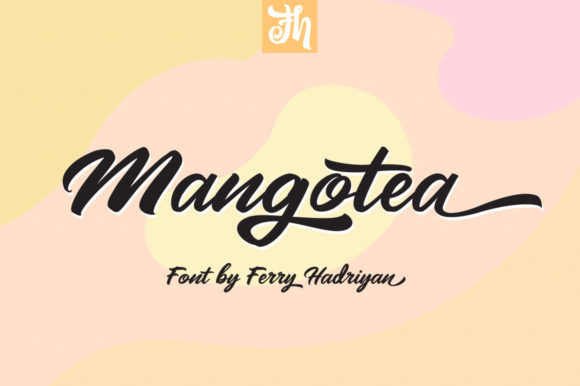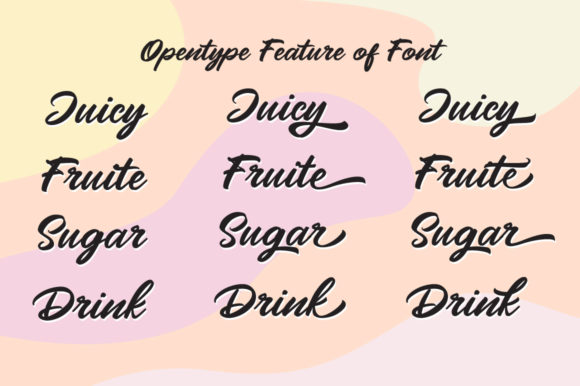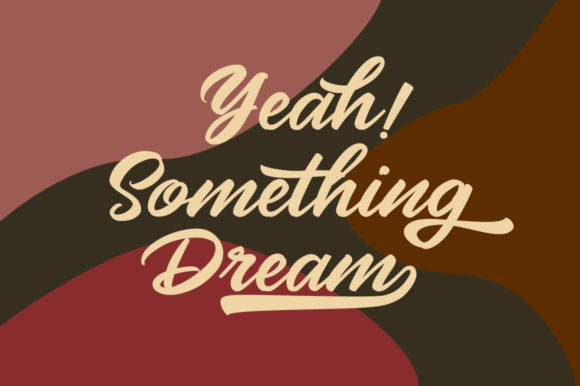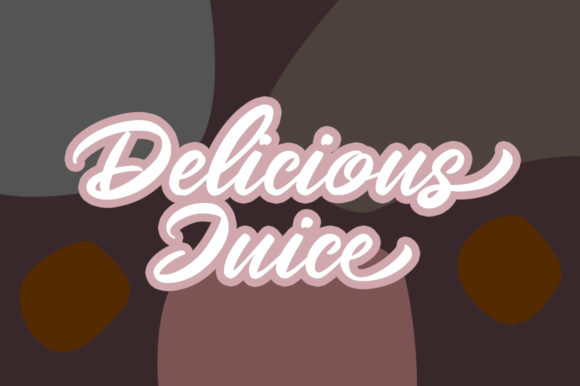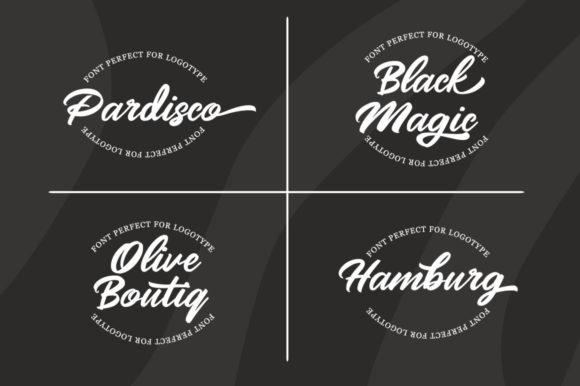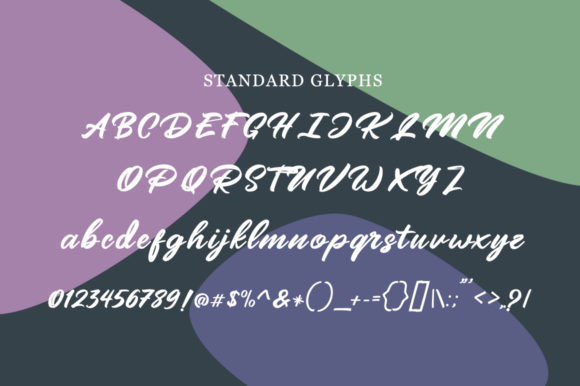
HomeScript FontsMangotea Font Script Fonts Mangotea Font FacebookXPinterestWhatsApp Mangotea Font Poster 2 Mangotea Font Poster 3 Mangotea Font Poster 4 Mangotea Font Poster 5 Mangotea Font Poster 6 About Mangotea Font Mangotea is a bold script font with exciting character. Get motivated by its eye-catching character! DOWNLOAD ON CREATIVE FABRICAThis font is sold and delivered by Creative Fabrica. Font Canyon may earn a commission if you buy through this link. People also explored Unlock Endless Creativity with the FREE September Clipart Huge Bundle (Valued... GingerBread Font Shaqilla Font Christmas!! Font Sweet Love Font Dona Freddie Font Spirit Lotus Mandala Font Rollane Font Cheesy Grits Font 320 0 TagsMangotea Font Previous articleWinterfellia FontNext articleSimpletune Font LEAVE A REPLY Cancel reply Comment: Please enter your comment! Name:* Please enter your name here Email:* You have entered an incorrect email address! Please enter your email address here Website: Save my name, email, and website in this browser for the next time I comment. Personal Use Free Osaka Personal Use Free Read more about this font Authurium Personal Use Free Read more about this font Beat My Guest Personal Use Free Read more about this font Burgie Personal Use Free Read more about this font BLOG Transform Your Website: Elevate Your Typography with 7 Best Web Font Generators Are you ready to transform your website's typography from ordinary to extraordinary? Great! Today, we're diving into the world of web font generators, which... Top 10 Handwritten Fonts That Elevate Your Designs Free vs Paid Fonts: Why Investing in Premium Fonts Is Worth It To increase your work productivity, choose the most readable fonts.